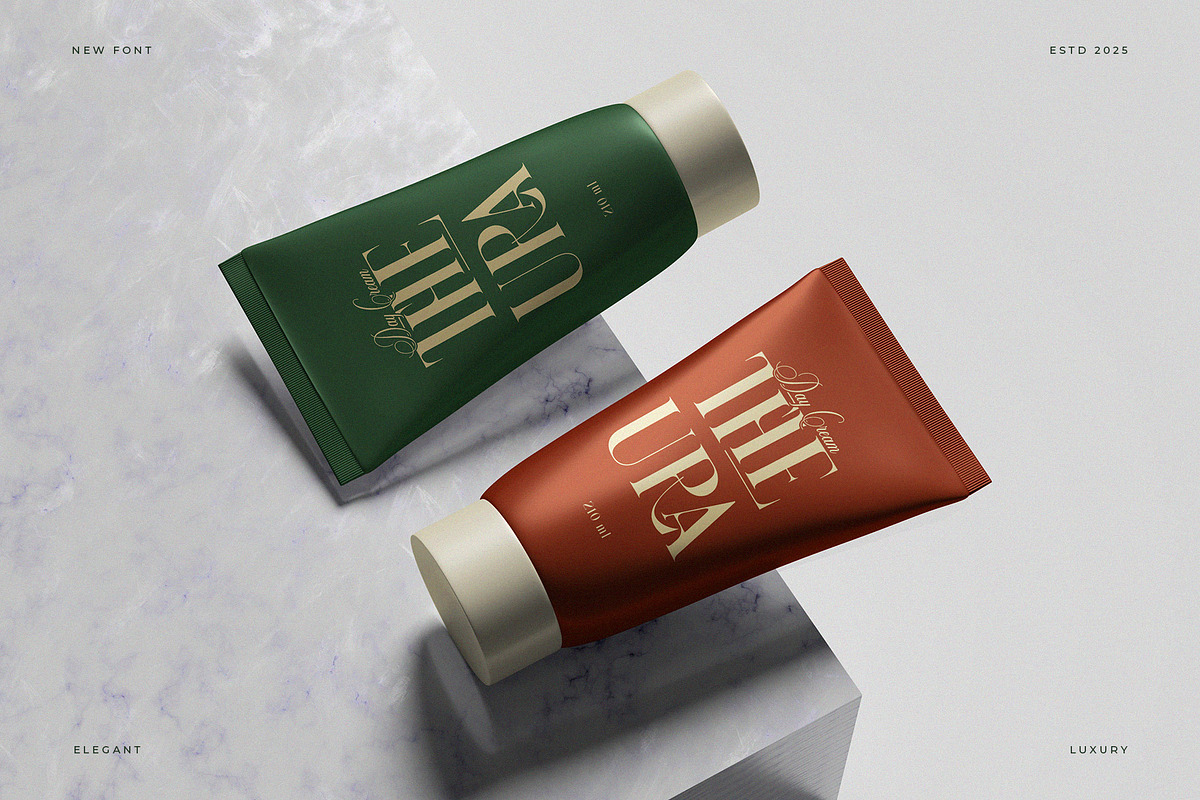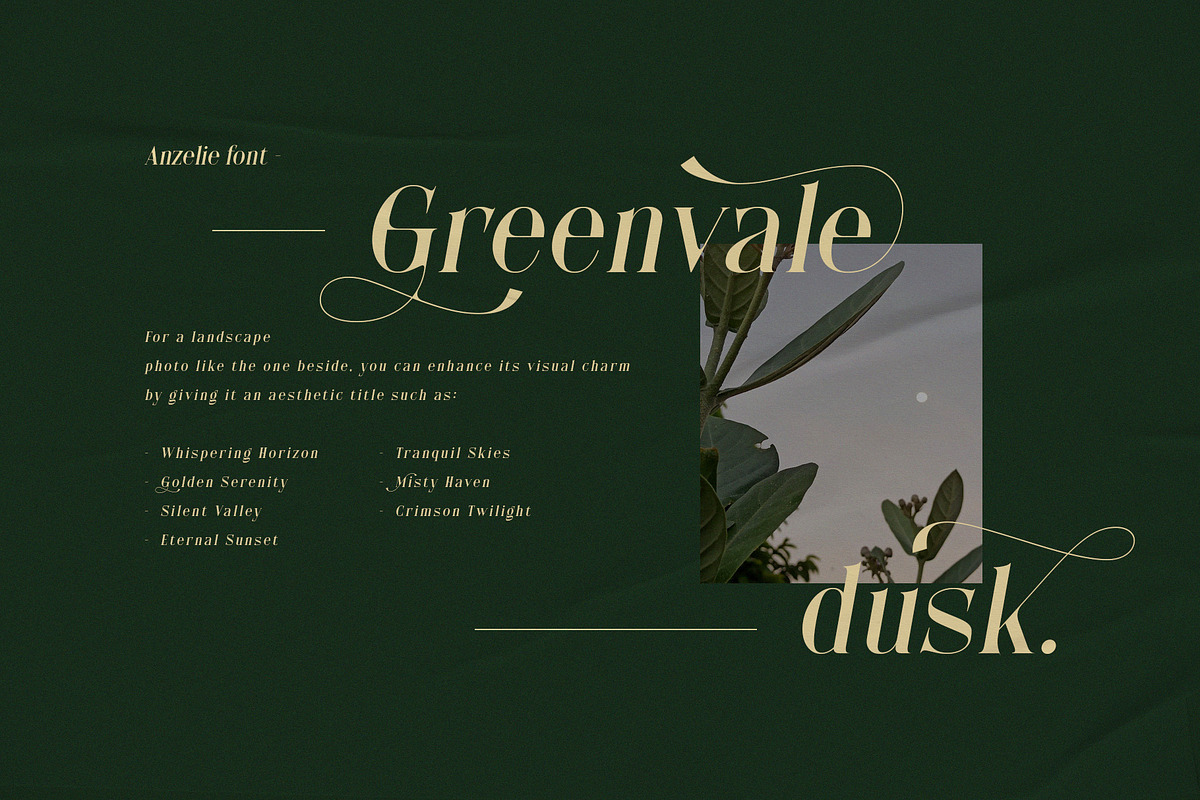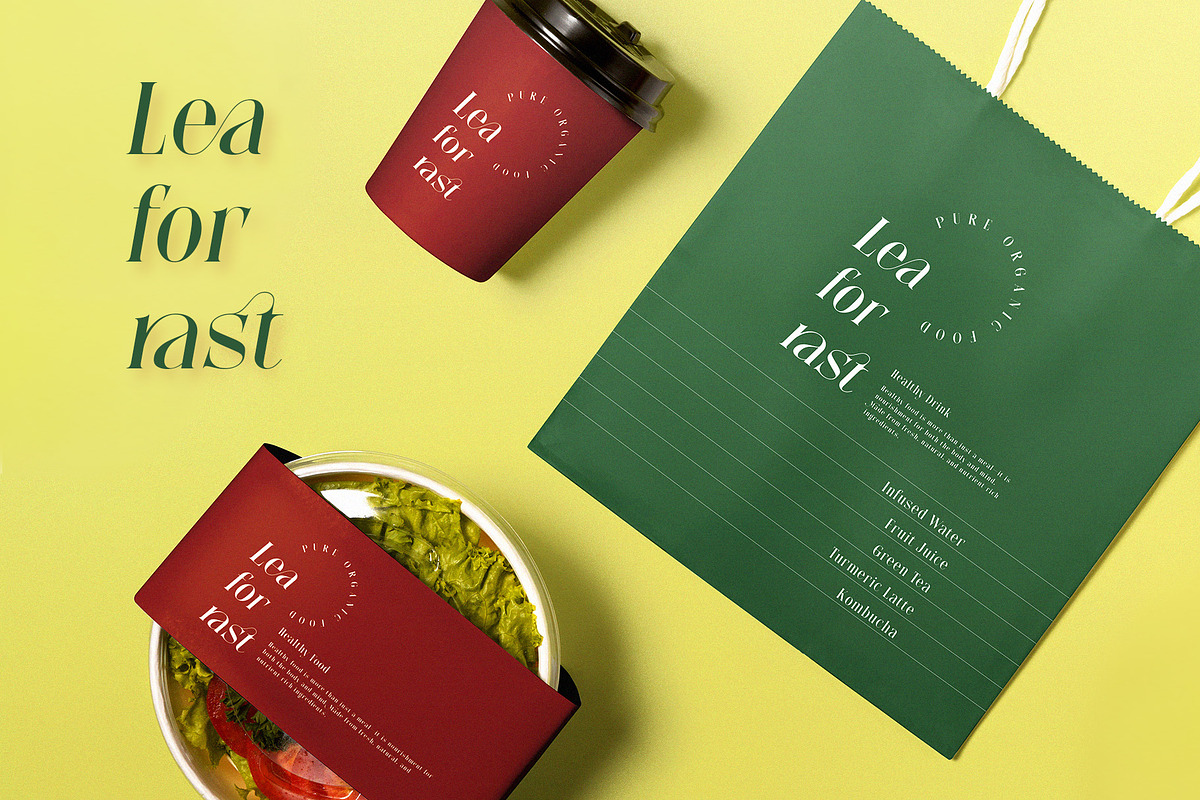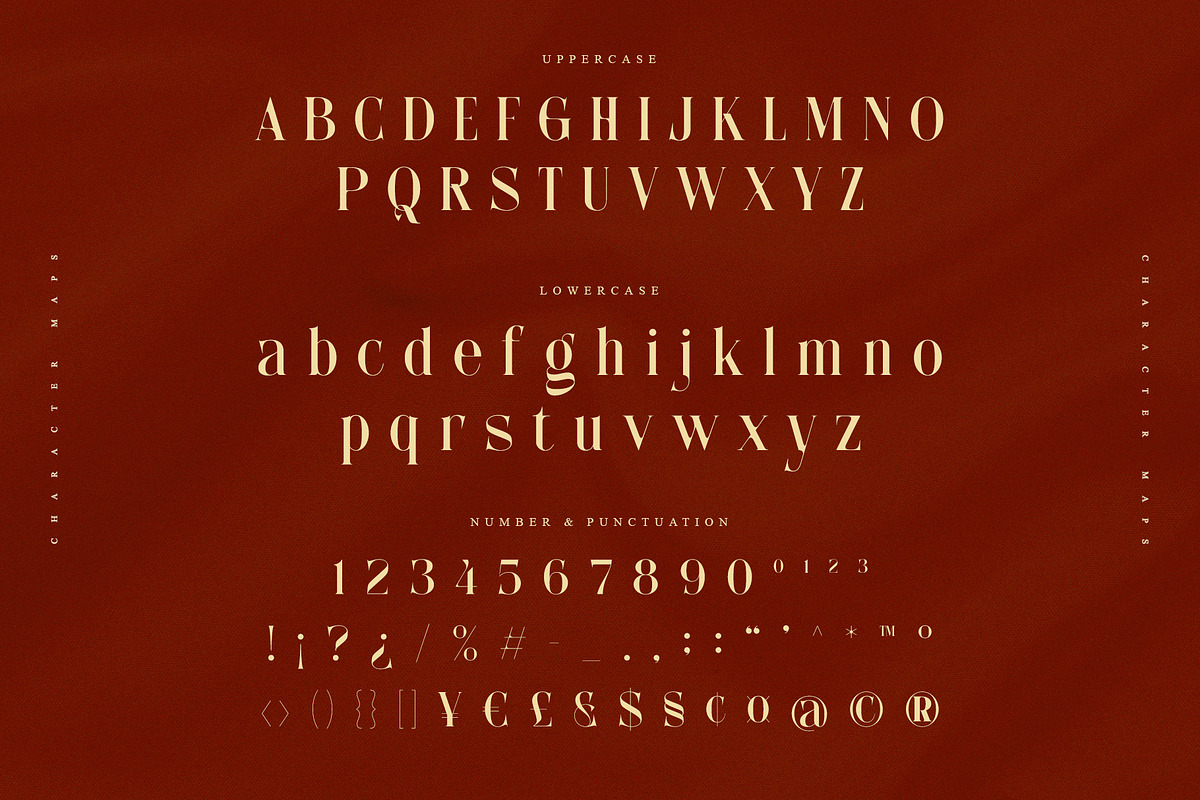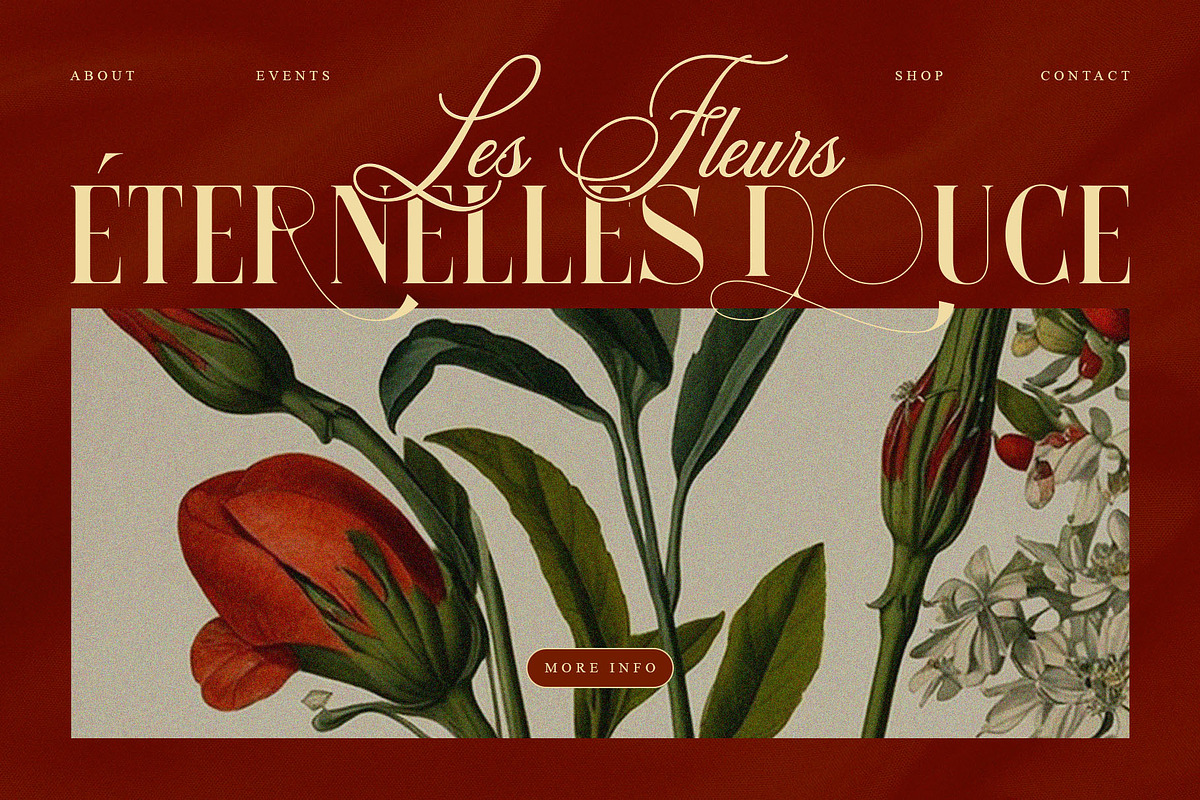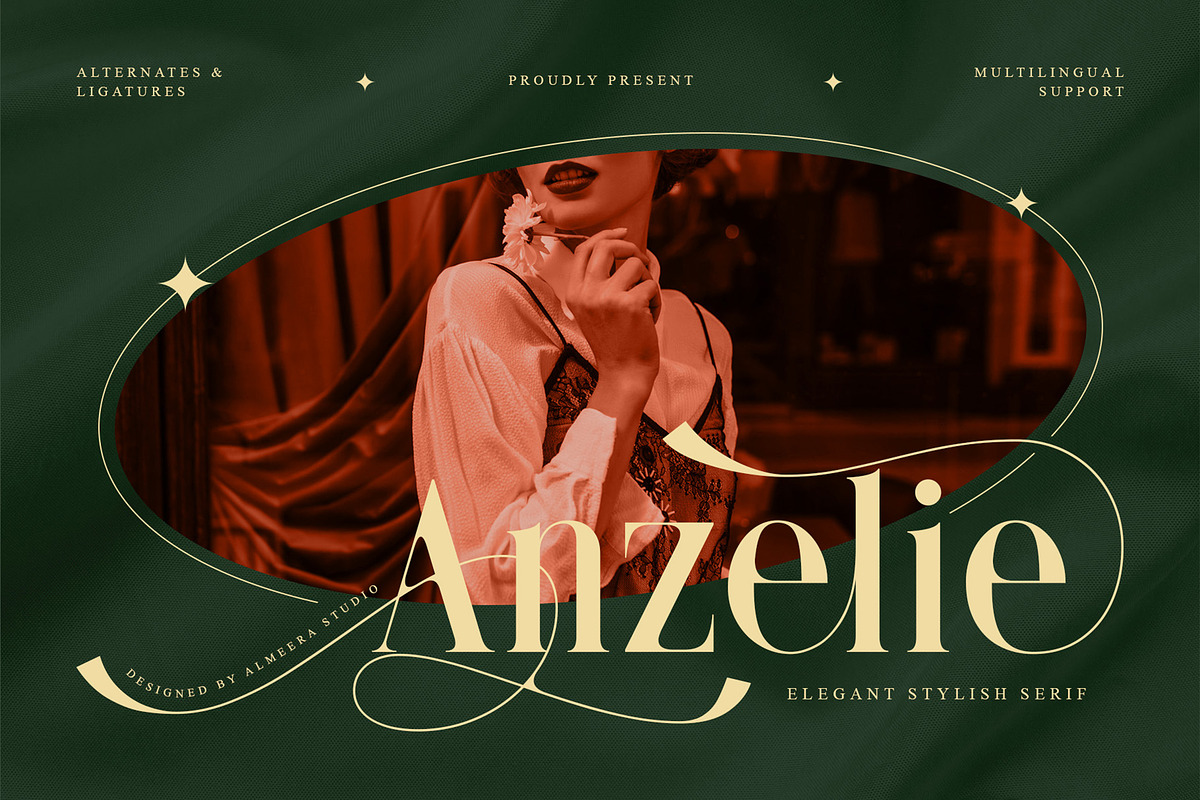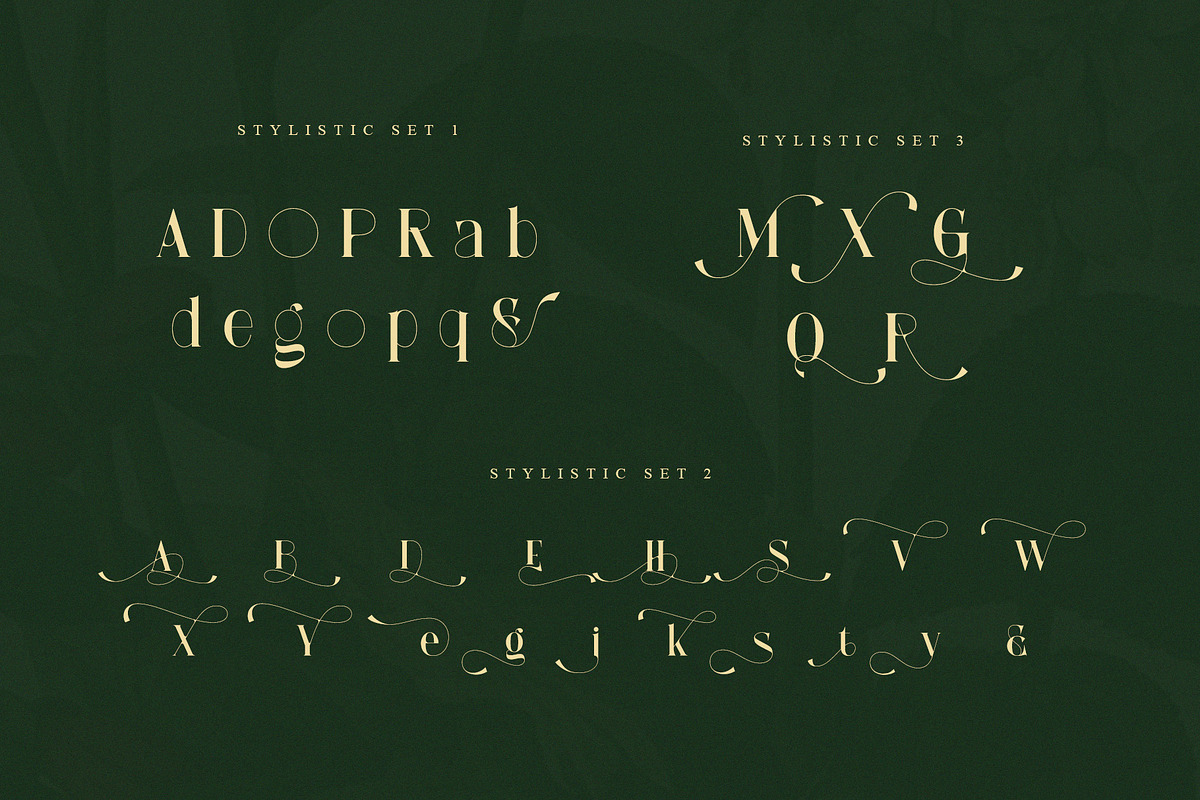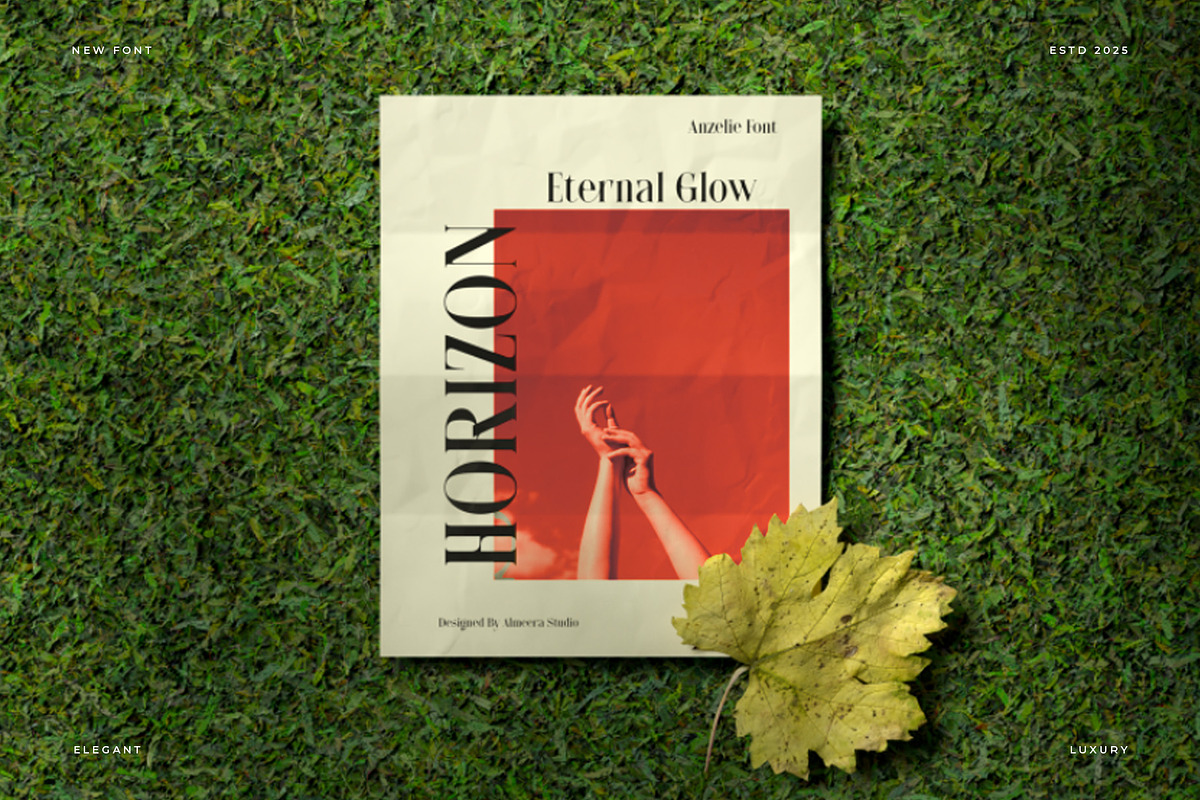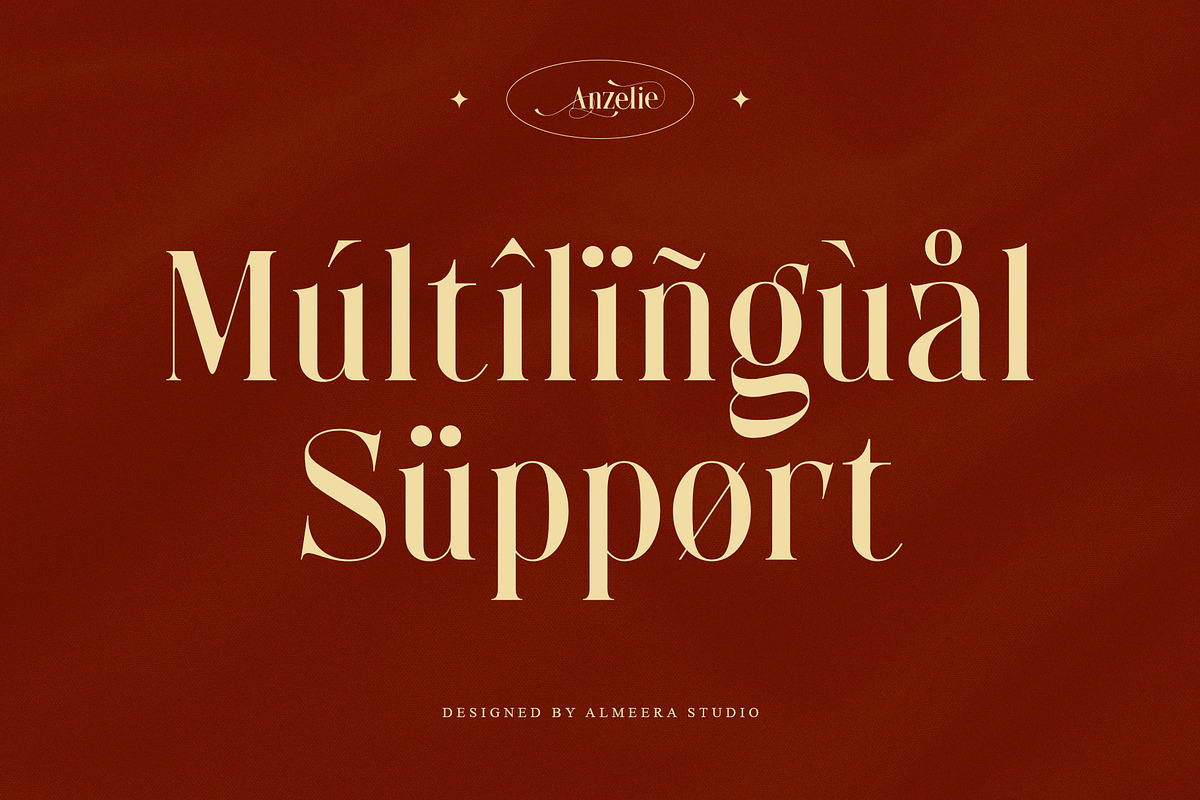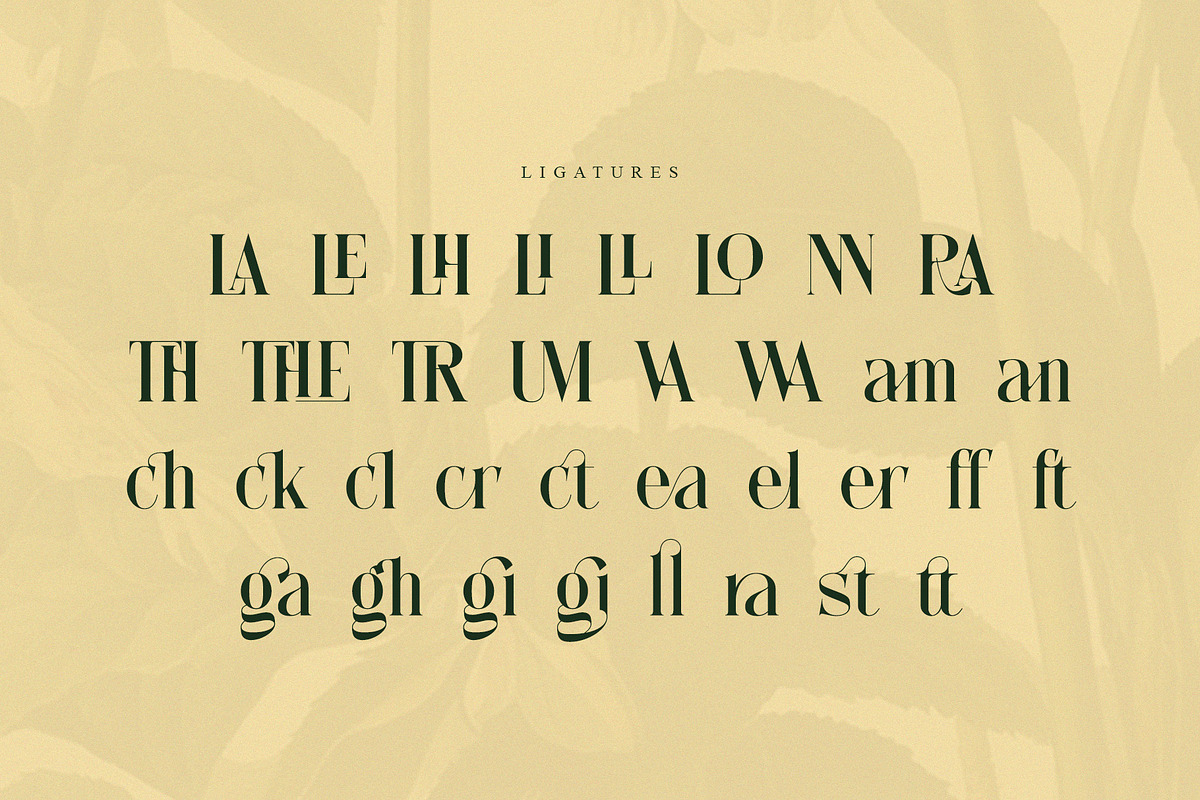
Anzelie – Elegant Stylish Serif
Anzelie is an elegant stylish serif font that blends timeless sophistication with modern charm. Featuring graceful alternates and unique ligatures, Anzelie is perfect for luxury branding, editorial design, packaging, fashion campaigns, and wedding invitations. Its refined details and smooth curves bring a sense of exclusivity and artistry to every project. With multilingual support, Anzelie ensures your designs remain versatile and professional across global audiences.
- Playful alternates and swashy details
- Numerial